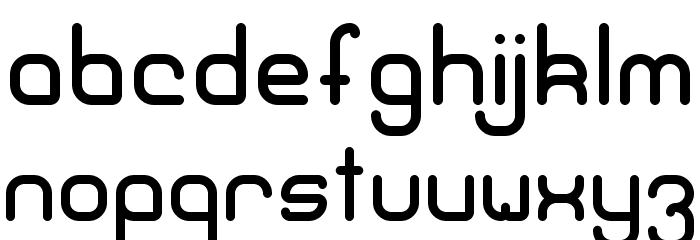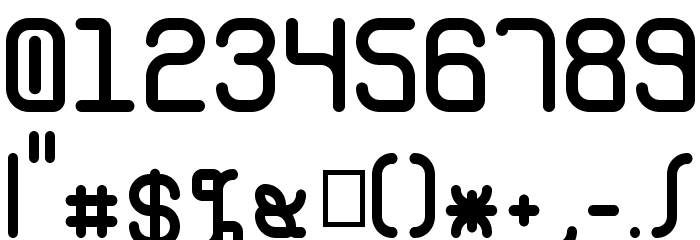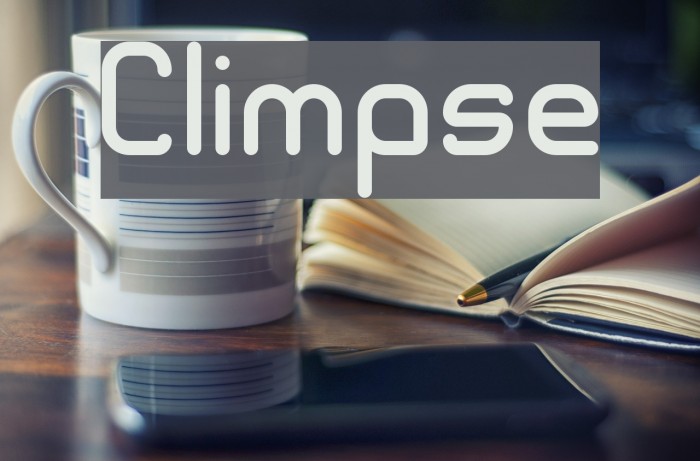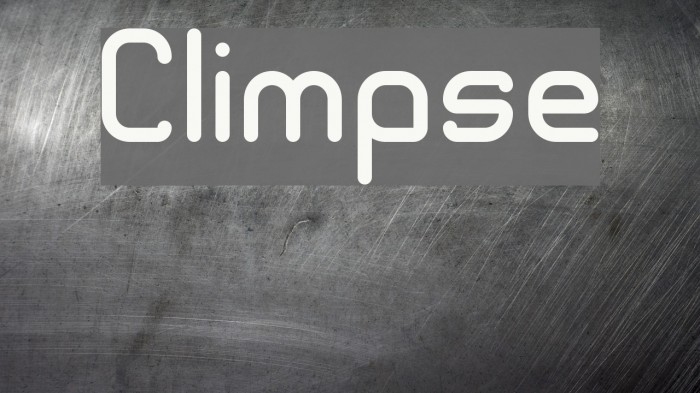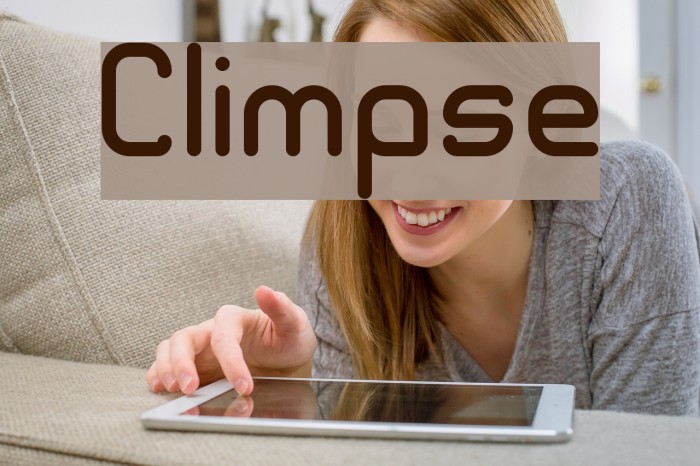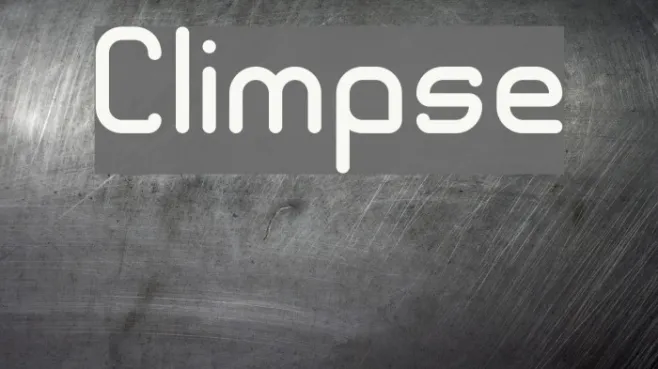
Climpse Font
This font features a modern, rounded design with a geometric structure. The characters are uniform in width, giving it a monospaced appearance, yet they maintain a playful and approachable feel due to their rounded edges. The uppercase letters are bold and prominent, while the lowercase letters maintain the same rounded style, ensuring consistency across the typeface. The numerals are clear and easy to read, matching the overall aesthetic. Special characters are included, maintaining the same rounded and bold style, making this font versatile for various uses.
A modern, rounded font with a geometric and monospaced appearance.
- Proposed Projects: Ideal for tech branding, modern web design, app interfaces, and educational materials.
- Use Case: Logos, Headlines, Digital Interfaces